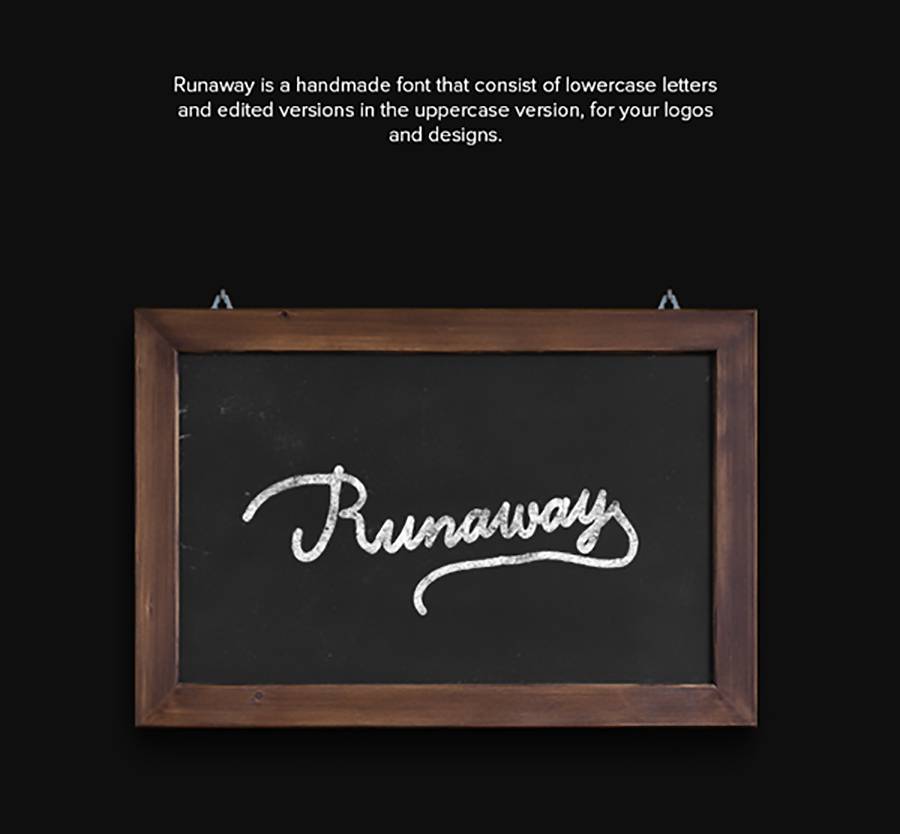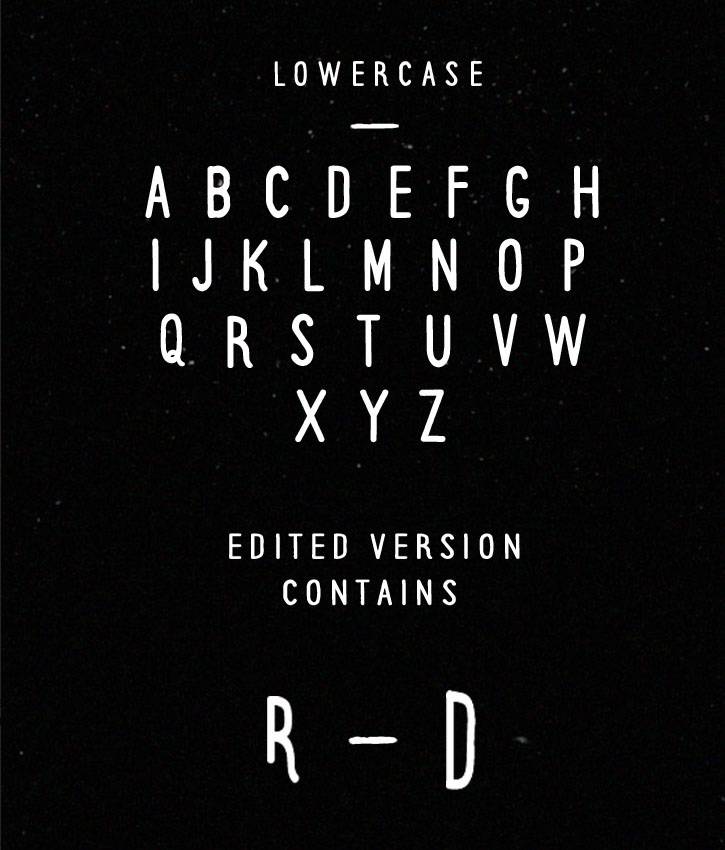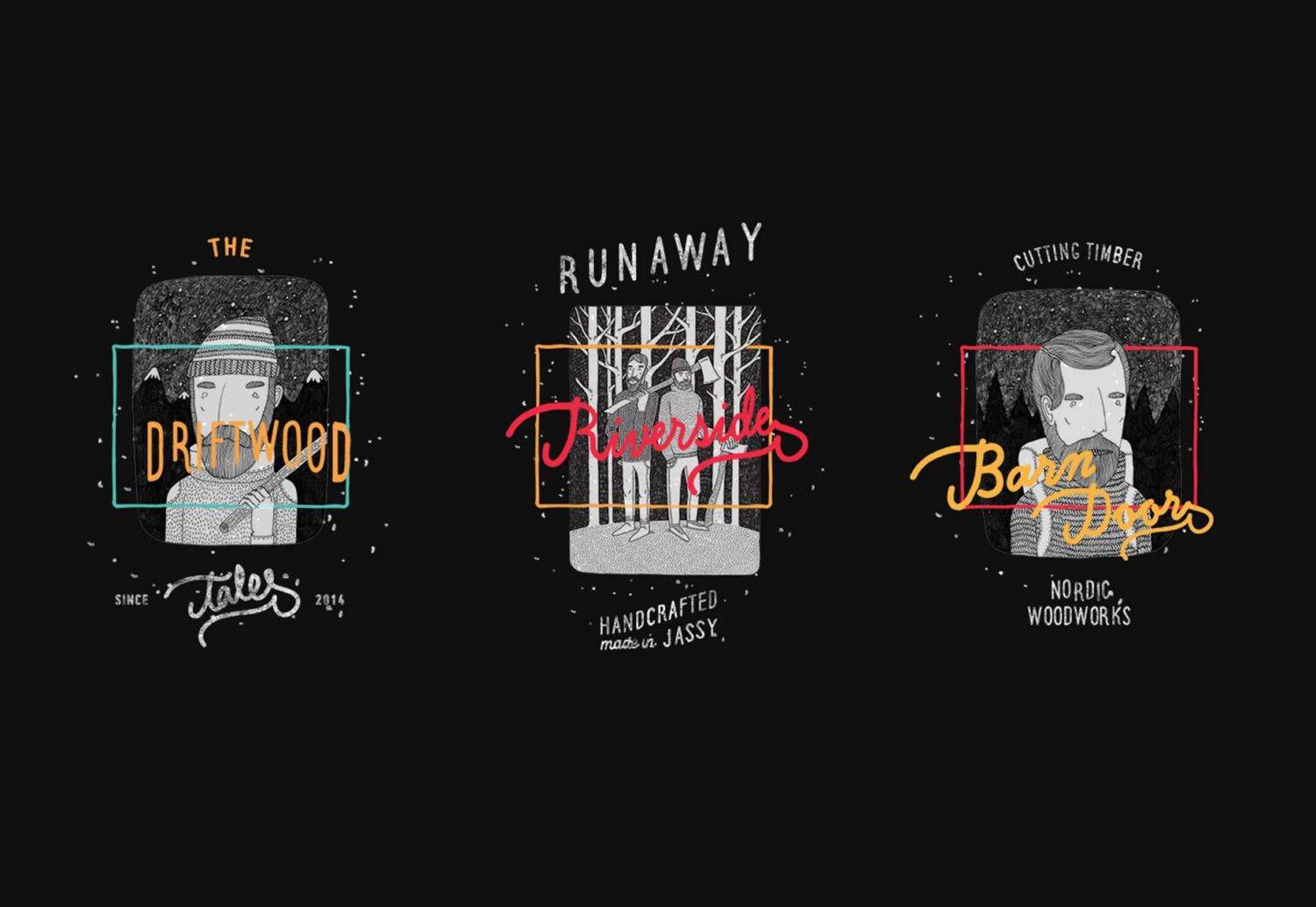
Runaway Font is a tall, narrow sans serif typeface with a playful, hand-drawn feel. Its consistent stroke weight and slightly irregular shapes give it a friendly and informal personality, making it great for creative projects, branding, and headlines that want to communicate energy and uniqueness. This font works well where a casual but distinctive look is needed, especially in packaging, posters, and eye-catching display text.
Runaway Font
| Designer | Iulian Maftei |